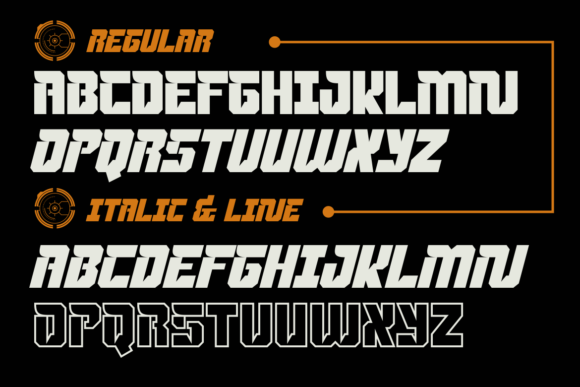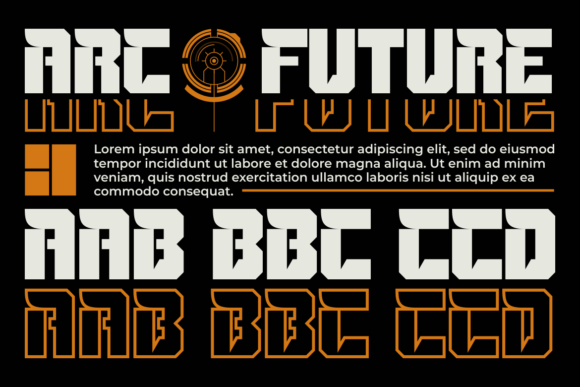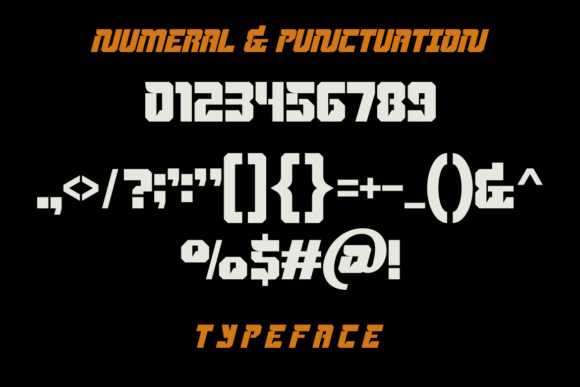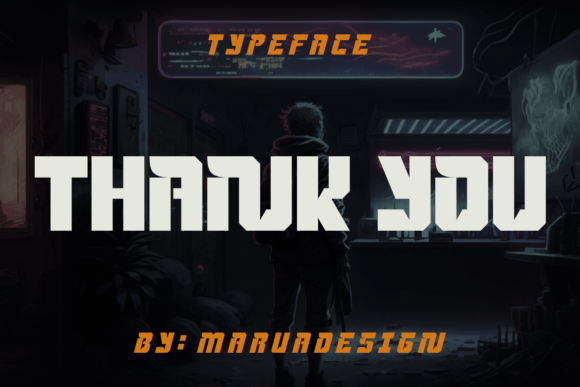
The Ultimate Display Font: Unleashing the Power of Execute
I’ll never forget the moment I stumbled upon the perfect font for a client’s branding project. It was as if the stars aligned, and my design woes disappeared into thin air. That font was Execute, an incredibly unique display font that has since become a staple in my design toolkit. In this article, I’ll share my love for Execute, its features, and how to make the most of it in your creative projects.
A Personal Love Affair with Execute
Execute is more than just a font – it’s a design powerhouse. Masterfully crafted to elevate your creative ideas, this font has the potential to become your go-to choice for display text. Here’s what I love about Execute:
- ✨ Unique and eye-catching design
- ✅ Highly legible, even at large sizes
- 🔥 Extensive character set, including glyphs and stylistic alternates
The Honest Review: Not Perfect, But Close
While Execute is an exceptional font, it’s not without its quirks. Here are a few limitations to keep in mind:
- 🤔 Some characters may require manual kerning for optimal spacing
- ⚠️ Limited suitability for body text due to its display-focused design
The Story Behind Execute: Designer Inspiration
Execute was designed by a team of typographers who sought to create a unique display font that would push the boundaries of creative expression. Inspired by the world of technology and innovation, they crafted a font that is both futuristic and elegant. The result is a versatile font that can be used in a wide range of design applications.
| Font Name | Execute Font |
| Author | Marvadesign |
| What is Execute best suited for? | Execute is ideal for display text, headlines, titles, and creative projects where a unique and eye-catching font is desired. |
| Can I use Execute for body text? | While Execute is highly legible, it’s primarily designed for display text. For body text, consider using a font with more traditional proportions. |
| Is Execute a script font? | No, Execute is a sans-serif display font with a unique and stylized design. |
With Execute in your design toolkit, the possibilities are endless. Whether you’re a designer, crafter, or creative hobbyist, this font has the potential to elevate your projects and bring your ideas to life.